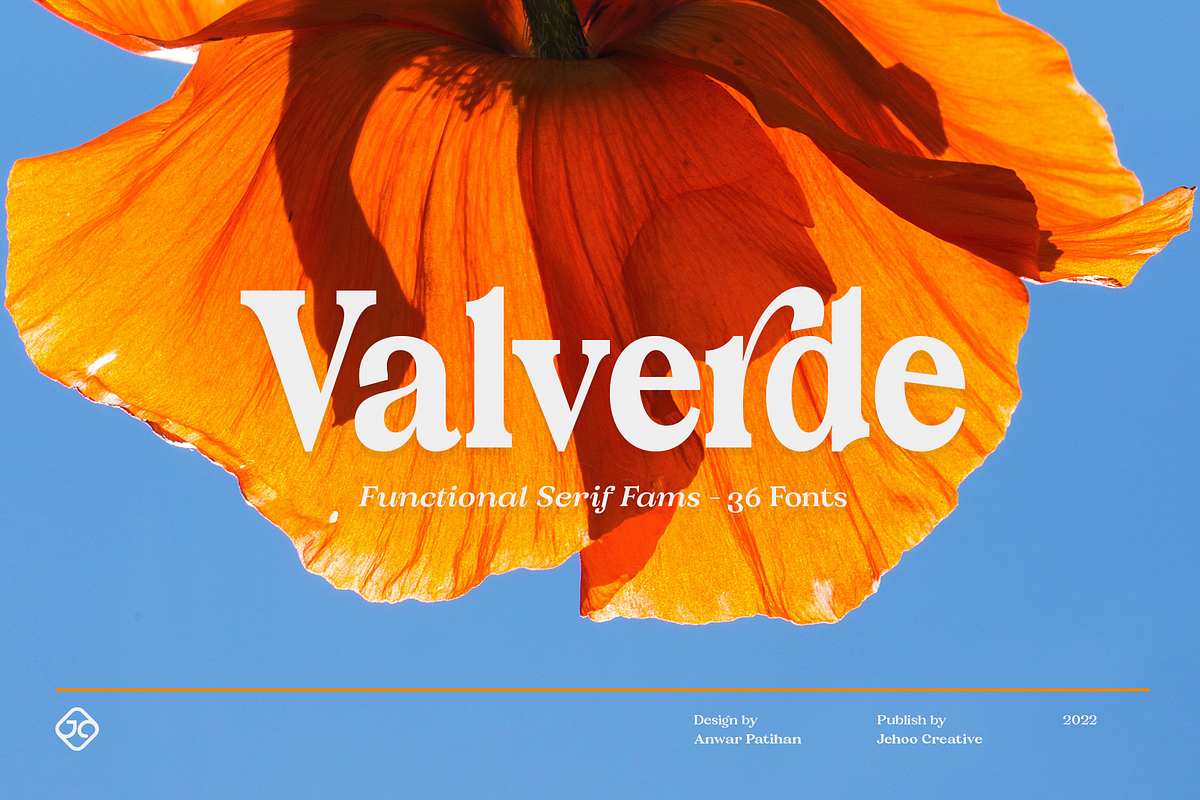
Valverde Functional Serif - 36 Fonts Free Download is a comprehensive serif font family designed for flexibility and high-performance typography. With 36 versatile styles ranging from thin to bold and featuring both upright and italic versions, Valverde is perfect for editorial design, branding, packaging, web design, and professional documents.
This font family combines timeless serif elegance with modern functionality, offering excellent readability and a polished, sophisticated look. Whether you're building a corporate identity, designing magazine layouts, or crafting digital interfaces, Valverde adapts beautifully to any context.